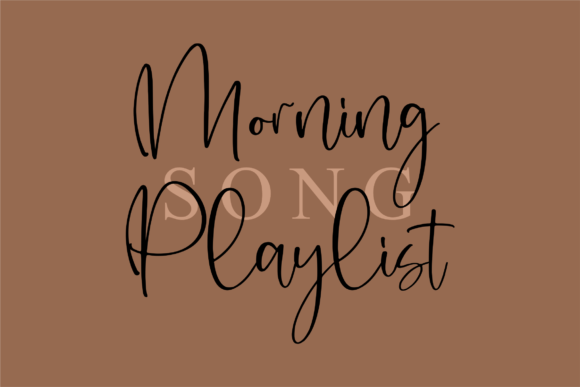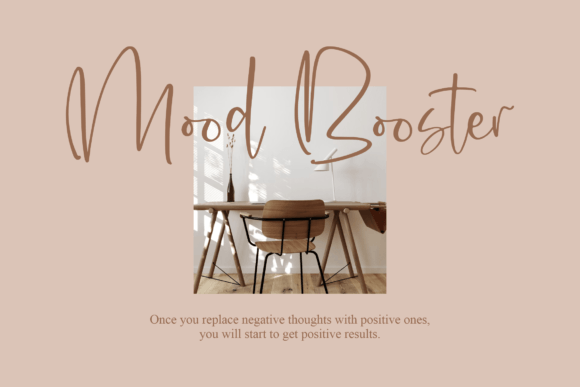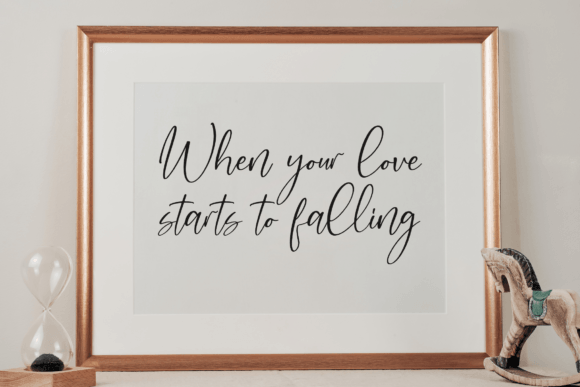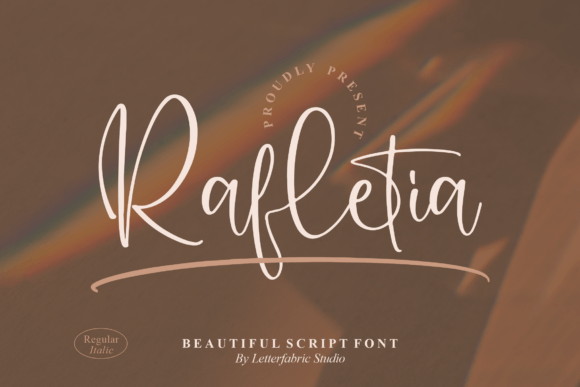
Introduction to Rafletia Font
Rafletia is a slim and exquisite handwritten font.
Stylish, graceful, and flowing, this font will definitely elevate the look of any of your beautiful creations while keeping them grounded and natural This font is PUA encoded which means you can access all of the amazing glyphs and ligatures with ease.